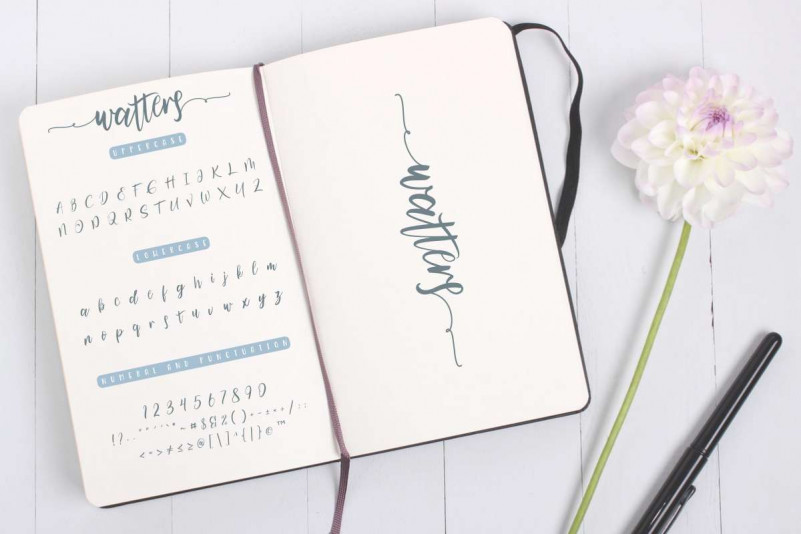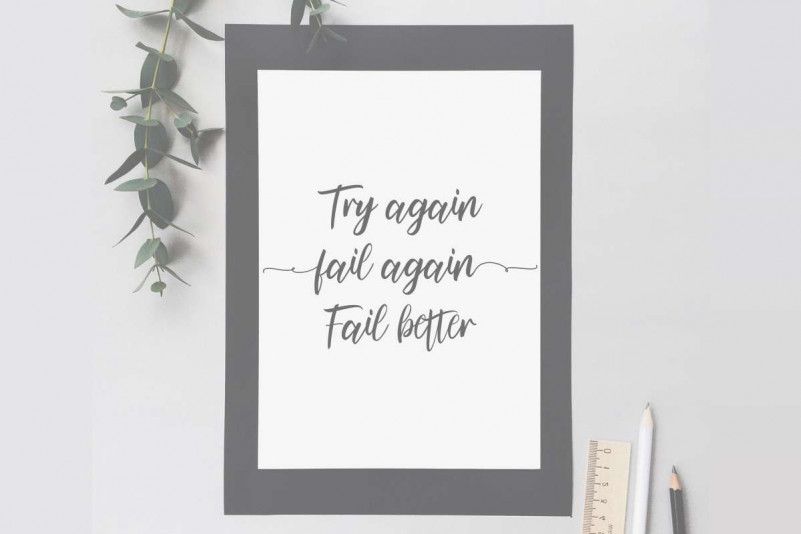
Watters Calligraphy Font
Dear Creative folks.. Today EdricStudio is going to present one of our latest font which is perfectly crafted from our studio. Please welcome : Watters Calligraphy Font This new font is a calligraphy Font, with a stylish and elegant style. With this font you can explore many industries and designs categories. With an extendend licenses you can create anything you want : Branding (logo, stationery, bizcard, head letter, folder etc), promotions stuff (flyer, brochure, postcard etc), Digital marketing (Banner, Ads, cover etc), Personal Invitation, Magazine, Website etc